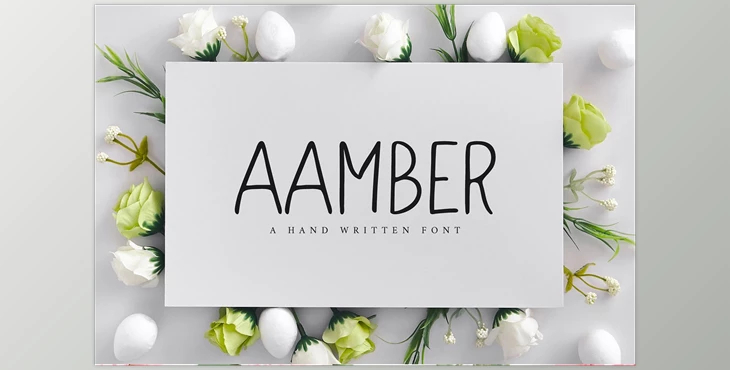
Aamber Sans Serif Font: Aamber is a lovely modern, delicate and elegant handcrafted font that will transform any design idea into something stunning and elevate it to the next step! It comes with glyphs that are complete that support multilingual usage. Aamber is ideal for presentations, packaging such as headlines, logos letters, posters branding and quotes, titles magazine headings, layouts for websites, advertising invitations, packaging design books, and virtually every other creative design.